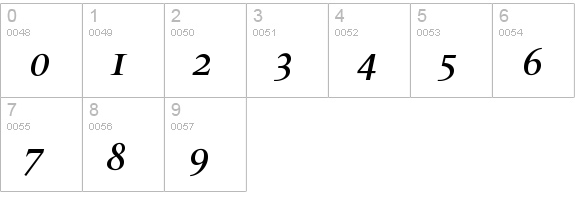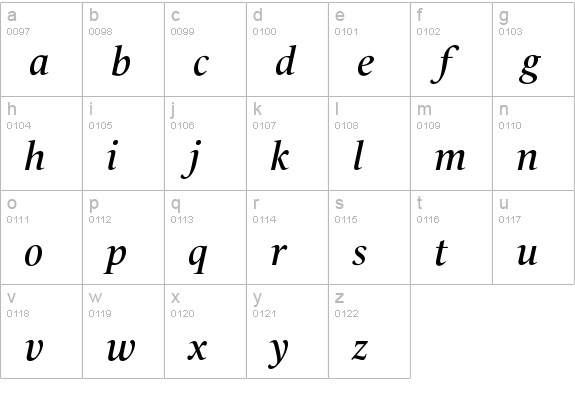
LeMondeLivre Demi Italic Oldstyle Figures is a sub-bold, structured, italic variant in the LeMondeLivre typeface family \xE2\x80\x94 well suited to sub-headlines and emphasised passages.
LeMondeLivre Demi Italic Oldstyle Figures font is a stunning typeface that exudes elegance and sophistication. With its delicate curves and subtle slant, this font effortlessly captures the essence of timeless beauty. The oldstyle figures in LeMondeLivre Demi Italic add a touch of vintage charm, making it the perfect choice for projects that require a classic and refined aesthetic. Whether it's a book cover, a magazine layout, or an invitation, this font will elevate any design to a new level of sophistication. What sets LeMondeLivre Demi Italic Oldstyle Figures font apart is its versatility. It can be used for both titles and body text, making it a versatile option for any project. The careful attention to detail in the letterforms ensures legibility, even at smaller sizes. And the best part? LeMondeLivre Demi Italic Oldstyle Figures font is available for free download at FontsMarket.com. This means that you can add this exquisite typeface to your design arsenal without spending a dime. So why wait? Go ahead and download LeMondeLivre Demi Italic Oldstyle Figures font today and bring a touch of elegance to your next project.